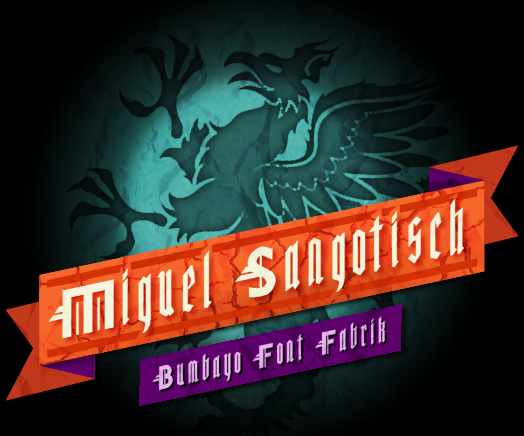
Preview and download Miguel Sangotisch Font. Created by Bumbayo Font Fabrik in Gothic Modern styles with Free for personal use license.
+++++++++++++ Font family »Miguel Sangotisch« includes two weights: Regular + Grungeze, which ones are Modern Gothic Fonts. Inspired by Old B-movie Signs. Has Uppercase Alphabet, Lowercase Alphabet, Numbers 0-9. Has Hungarian Accent Free for personal use/charity/school projects/church projects. Please donate me if you like this font. +++++++++++++ |